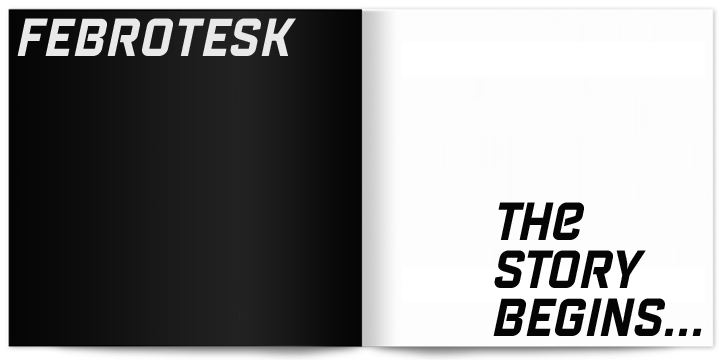
Looking to equip your designs with a font that’s both structurally robust and distinctly modern? Febrotesk 4F Font Free Download offers an excellent opportunity to explore a powerful sans-serif typeface. It's crucial to remember, however, that while a Febrotesk 4F Font Free Download might be available for personal and testing purposes, a commercial license is strictly required for any professional or revenue-generating projects. This ensures legal compliance and provides essential support to the talented font designers.
The Febrotesk 4F Font is exceptionally versatile and shines in a wide array of applications where clarity, strength, and a contemporary aesthetic are paramount. Its often geometric or neo-grotesque design with clear, open counters and a confident stance makes it an ideal choice for corporate branding, sophisticated website interfaces, and impactful editorial headlines. It excels as body text in annual reports, technical documentation, and extensive digital publications, ensuring effortless readability across diverse platforms. Furthermore, consider Febrotesk 4F Font for UI/UX design, app development, and large-scale signage systems where clear and efficient communication is critical. Its robust character also makes it perfect for presentations, information graphics, and brand guidelines.
What makes the Febrotesk 4F Font so exciting is its remarkable blend of understated elegance and uncompromising functionality. It often features neutral yet distinct letterforms that are designed for optimal readability at various sizes, making it a true workhorse font. This characteristic allows it to communicate a sense of authority, precision, and modernity, ensuring your message is communicated with absolute clarity and impact. It’s a font that doesn't just look good; it performs exceptionally, providing a reliable and elegant foundation for any serious design project. Its sophisticated simplicity ensures your work will appear polished, trustworthy, and highly effective.
The Febrotesk 4F Font family typically boasts a comprehensive range of weights, making it incredibly adaptable for complex typographic hierarchies. You'll often find an extensive selection, from Hairline and Thin to Light, Regular, Medium, SemiBold, and Bold, usually accompanied by corresponding italic styles. This broad spectrum of weights, coupled with potential condensed or extended versions, provides designers with immense flexibility to create visually rich and harmonized layouts while maintaining a cohesive and professional brand identity across all touchpoints.